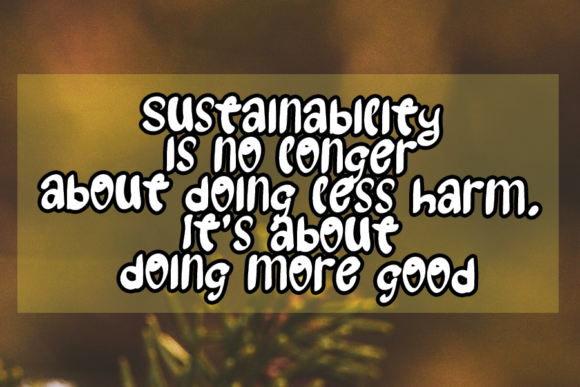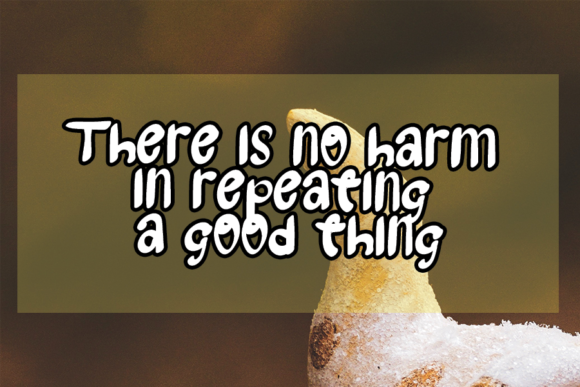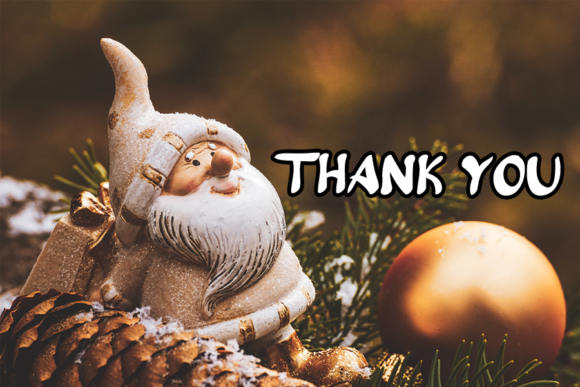
Introducing Banana Doom Font: The Trendy and Chic Display Font You Need
In the world of design, fonts play a crucial role in conveying the message and aesthetic of a project. Whether you’re working on a logo, a poster, or a website, the right font can make all the difference. If you’re looking for a font that is both trendy and chic, look no further than Banana Doom Font. This beautiful display font is perfect for designers and crafters who want to add a refreshing touch to their designs.
What is Banana Doom Font?
Banana Doom Font is a stylish and modern display font that is perfect for headlines, titles, and other design elements. It was particularly crafted for those who need a beautiful and refreshing look to their designs. The font features a unique and elegant style that is sure to grab attention. With its clean lines and smooth curves, Banana Doom Font is the perfect choice for designers who want to create a lasting impression.
Key Features of Banana Doom Font
- Trendy and Chic Design: Banana Doom Font features a trendy and chic design that is perfect for modern designs.
- Display Font: This font is specifically designed as a display font, making it perfect for headlines, titles, and other design elements.
- Beautiful and Refreshing: The font features a unique and elegant style that is sure to add a refreshing touch to your designs.
- Clean Lines and Smooth Curves: Banana Doom Font features clean lines and smooth curves, making it perfect for creating a lasting impression.
Why Use Banana Doom Font?
There are many reasons why you should consider using Banana Doom Font in your designs. Here are a few:
- Add a Touch of Elegance: Banana Doom Font is perfect for designers who want to add a touch of elegance to their designs.
- Stand Out from the Crowd: The unique and stylish design of Banana Doom Font is sure to make your designs stand out from the crowd.
- Perfect for Modern Designs: This font is perfect for modern designs, including logos, posters, websites, and more.
- Easy to Read: Despite its stylish design, Banana Doom Font is easy to read, making it perfect for use in a variety of design applications.
How to Use Banana Doom Font
Using Banana Doom Font in your designs is easy. Here are a few tips:
- Use it as a Headline Font: Banana Doom Font is perfect for use as a headline font, adding a touch of elegance and sophistication to your designs.
- Pair it with Other Fonts: You can pair Banana Doom Font with other fonts to create a unique and stylish design.
- Experiment with Different Sizes: Don’t be afraid to experiment with different sizes to find the perfect fit for your design.
In conclusion, Banana Doom Font is a trendy and chic display font that is perfect for designers and crafters who want to add a refreshing touch to their designs. With its unique and elegant style, clean lines, and smooth curves, this font is sure to grab attention and make a lasting impression. Whether you’re working on a logo, a poster, or a website, Banana Doom Font is the perfect choice.